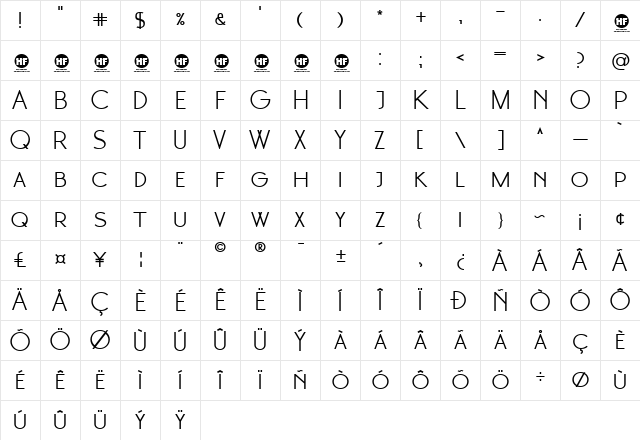
Complete Moonglade DEMO Regular glyph index. Displaying only characters natively supported by Moonglade DEMO Regular font.
Moonglade DEMO is a composed and adaptable typeface that performs quietly and consistently across a wide range of design contexts.